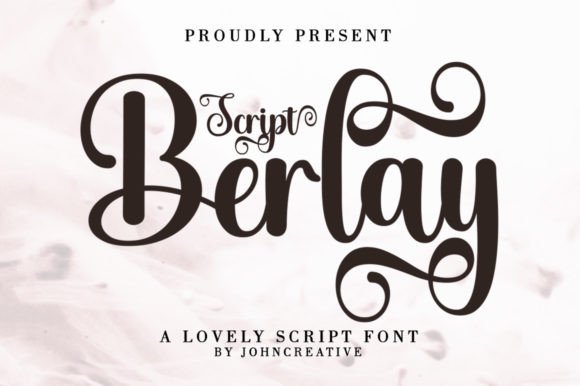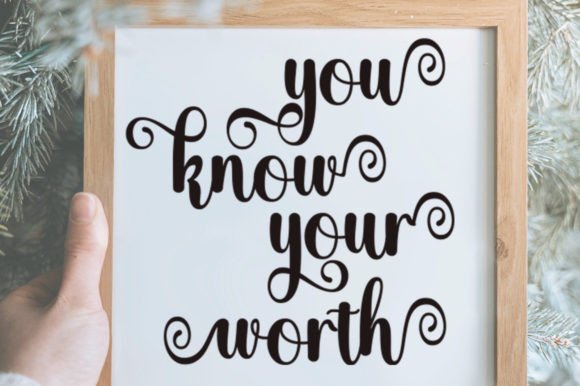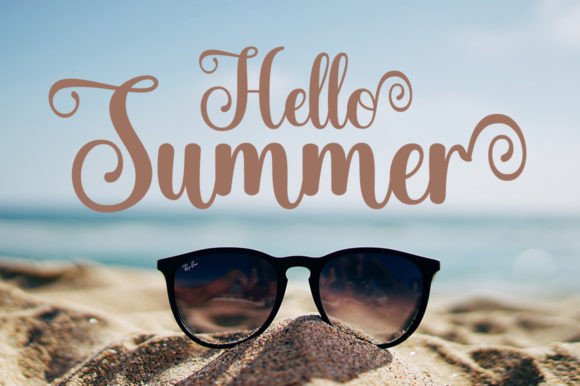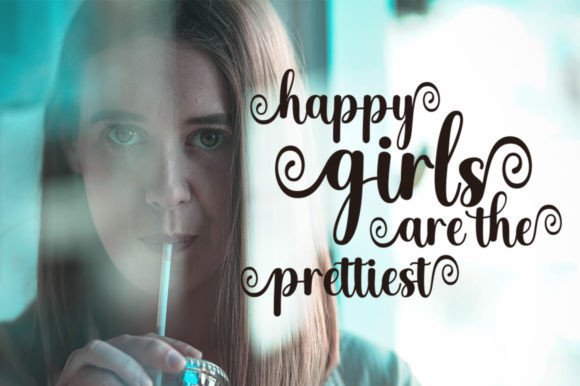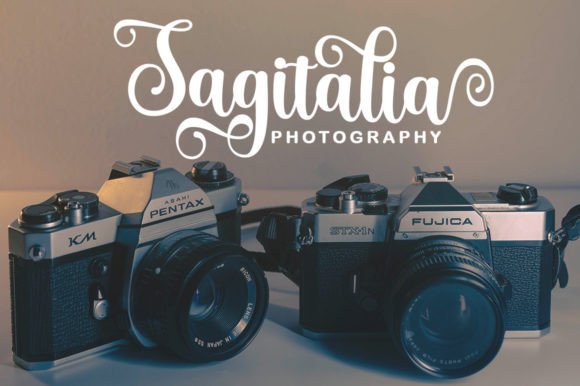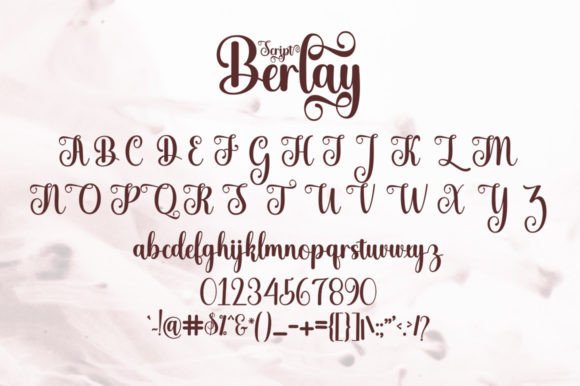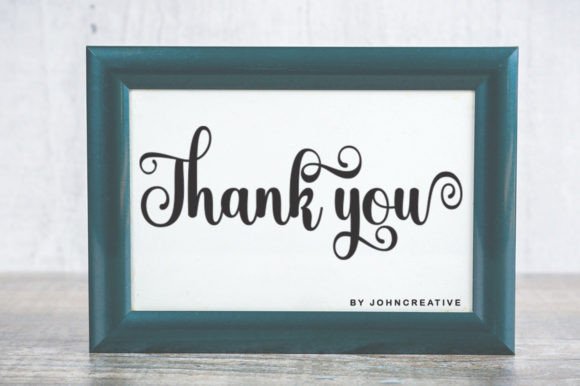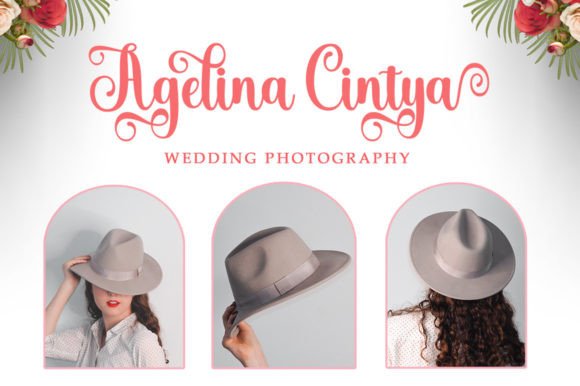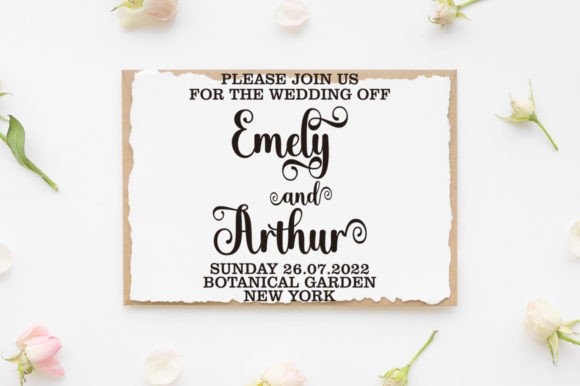
Berlay Script Font
Introducing Berlay Script, a sophisticated handwritten font designed to convey messages with confidence, authenticity, and charm. This font is not just a typeface; it’s a powerful tool that elevates a diverse array of crafting ideas, from cards to branding, labels, and beyond.
Berlay Script exudes a level of sophistication that brings a touch of elegance to your projects. Its handwritten style imparts a sense of authenticity, making it ideal for creating designs that feel personal and genuine. Whether you’re working on a heartfelt card, a professional brand identity, or stylish labels, Berlay Script adapts seamlessly to your creative vision.
One of the standout features of Berlay Script is its PUA encoding, providing easy access to all glyphs and swashes. This feature empowers you to customize and personalize your designs effortlessly, unleashing the full potential of this versatile font. With Berlay Script, your creativity knows no bounds, as you navigate through a wealth of characters and design elements.
Envision the confidence and charm of Berlay Script enhancing your messages, making them not just words on a page but expressions that captivate and resonate. Let this font be the conduit for your creativity, effortlessly delivering your ideas with a touch of sophistication. Embrace the versatility of Berlay Script as it becomes a key player in your creative toolkit, allowing you to craft designs that leave a lasting impression.